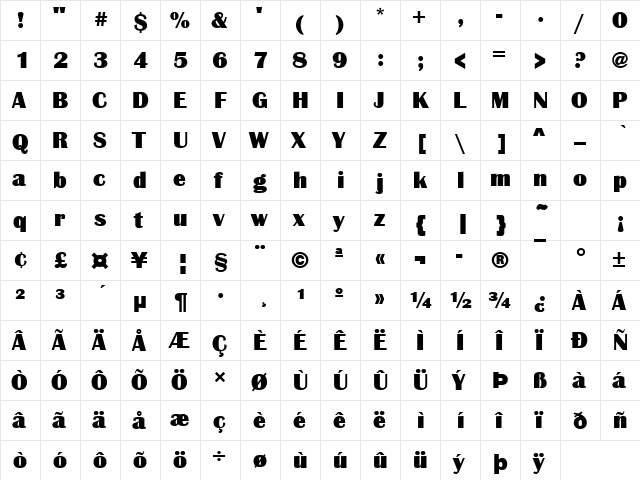
BritannicDUlt Regular
Design Context for BritannicDUlt Typeface
BritannicDUlt offers clean, dependable letterforms without strong stylistic allegiance, making it a practical choice for designers who need flexibility.